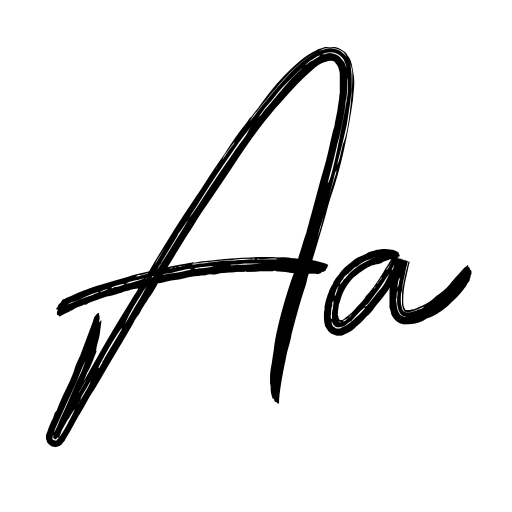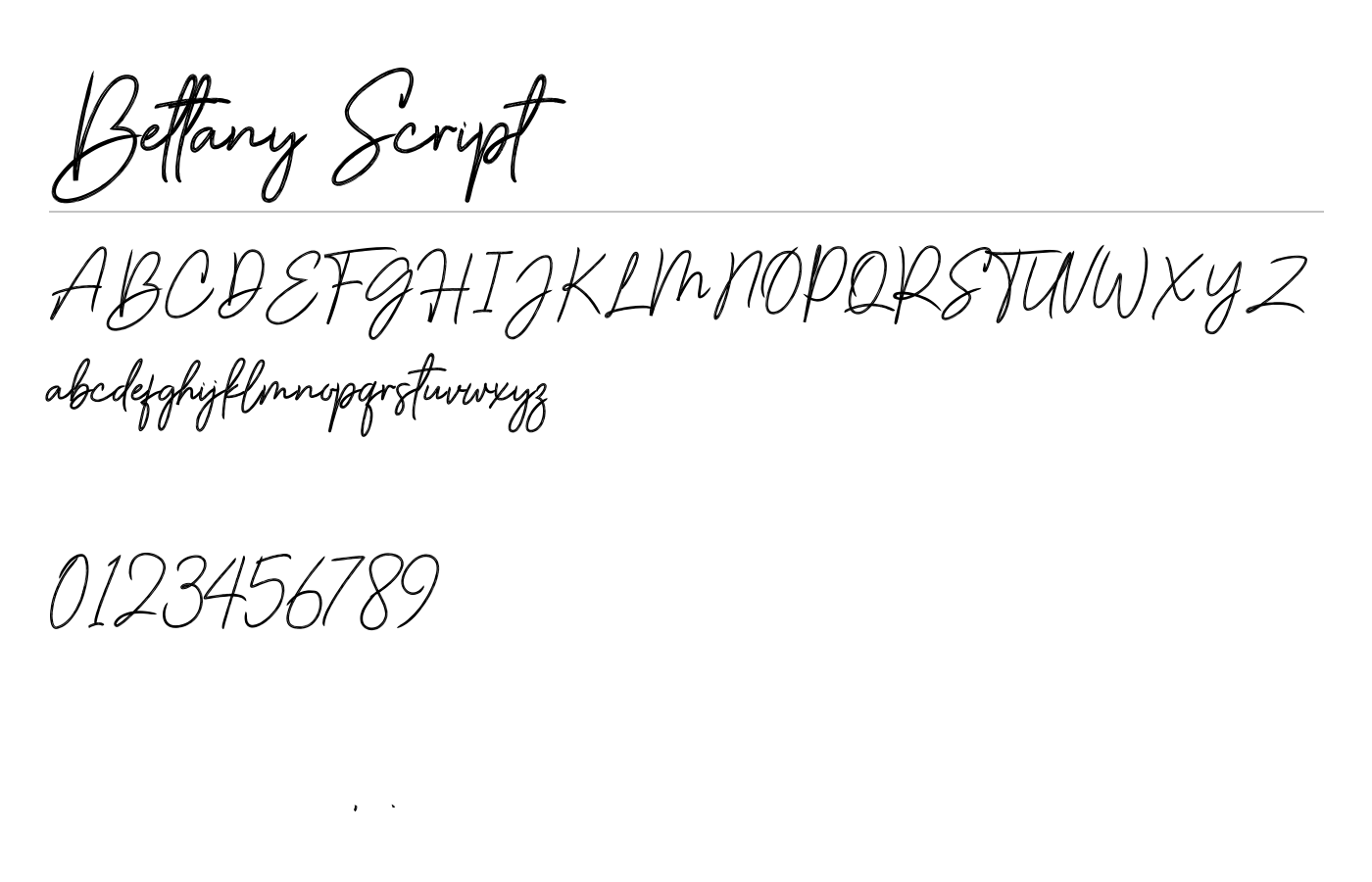
Bettany Script is a delicate and flowing handwritten script font featuring slender strokes and elegant, slightly irregular letterforms that mimic natural penmanship. Its light weight and airy spacing give it a refined, personal touch, making it ideal for invitations, branding, and creative projects that seek a stylish yet approachable feel. This font works wonderfully in designs where a handwritten, intimate atmosphere is desired without sacrificing sophistication.
Bettany Script Font